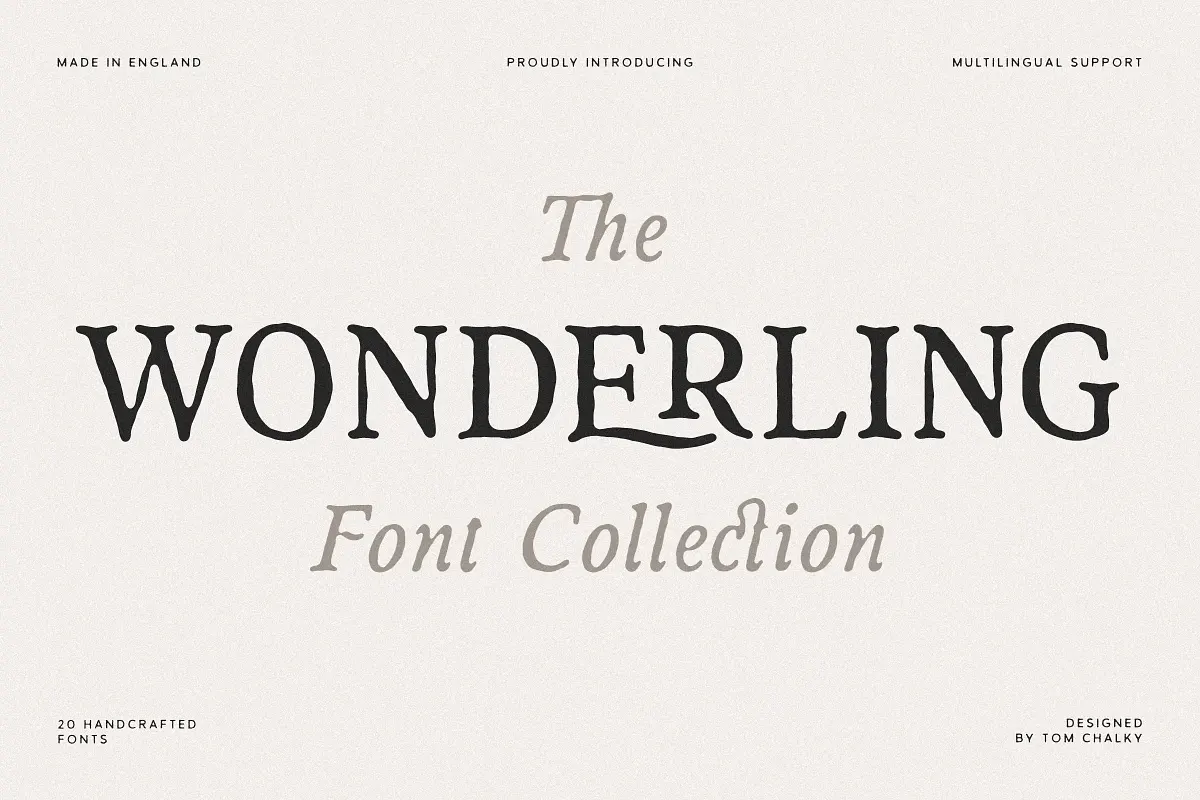
The Wonderling Font Pack Free Download
The Wonderling Font Pack Free Download is a beautifully designed collection of fonts that offers a variety of styles for different design needs. The pack includes elegant, whimsical, and modern typefaces, providing flexibility for projects ranging from branding and logos to social media graphics, posters, and more.
Each font in The Wonderling Font Pack is crafted with care to add character and charm to your designs. Whether you're working on a creative project, a chic branding initiative, or a playful design, this pack offers the versatility and flair to suit your needs.